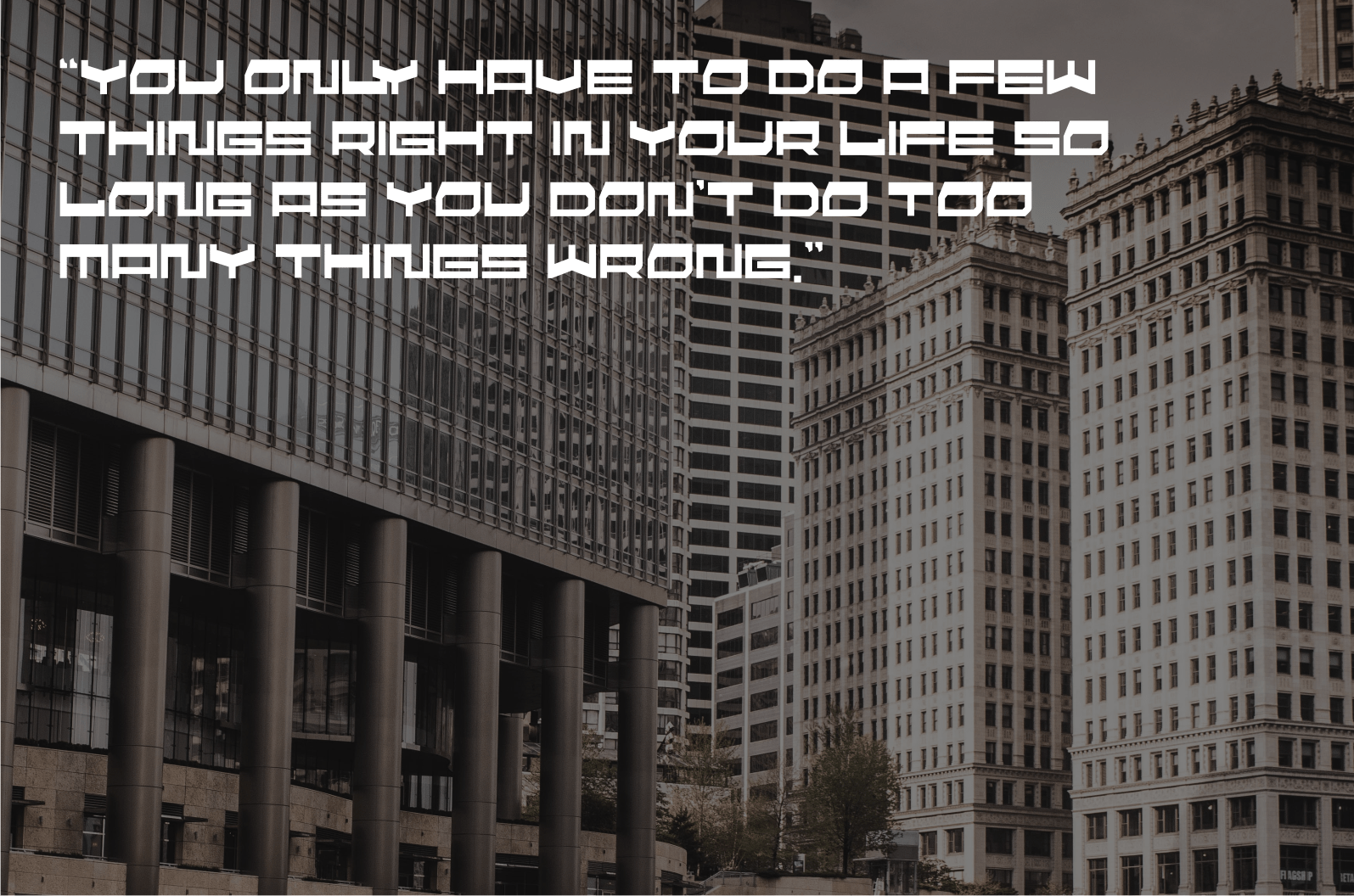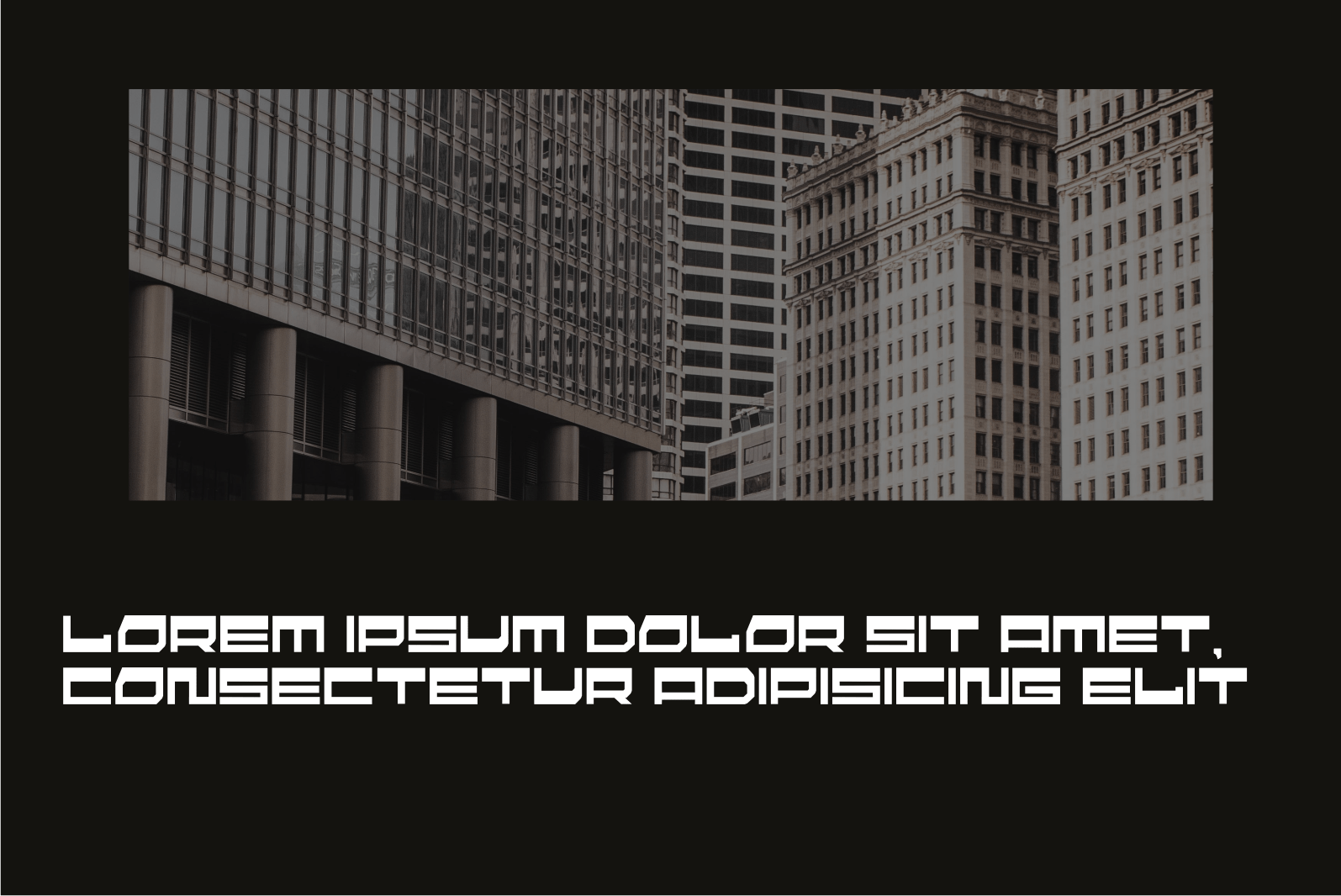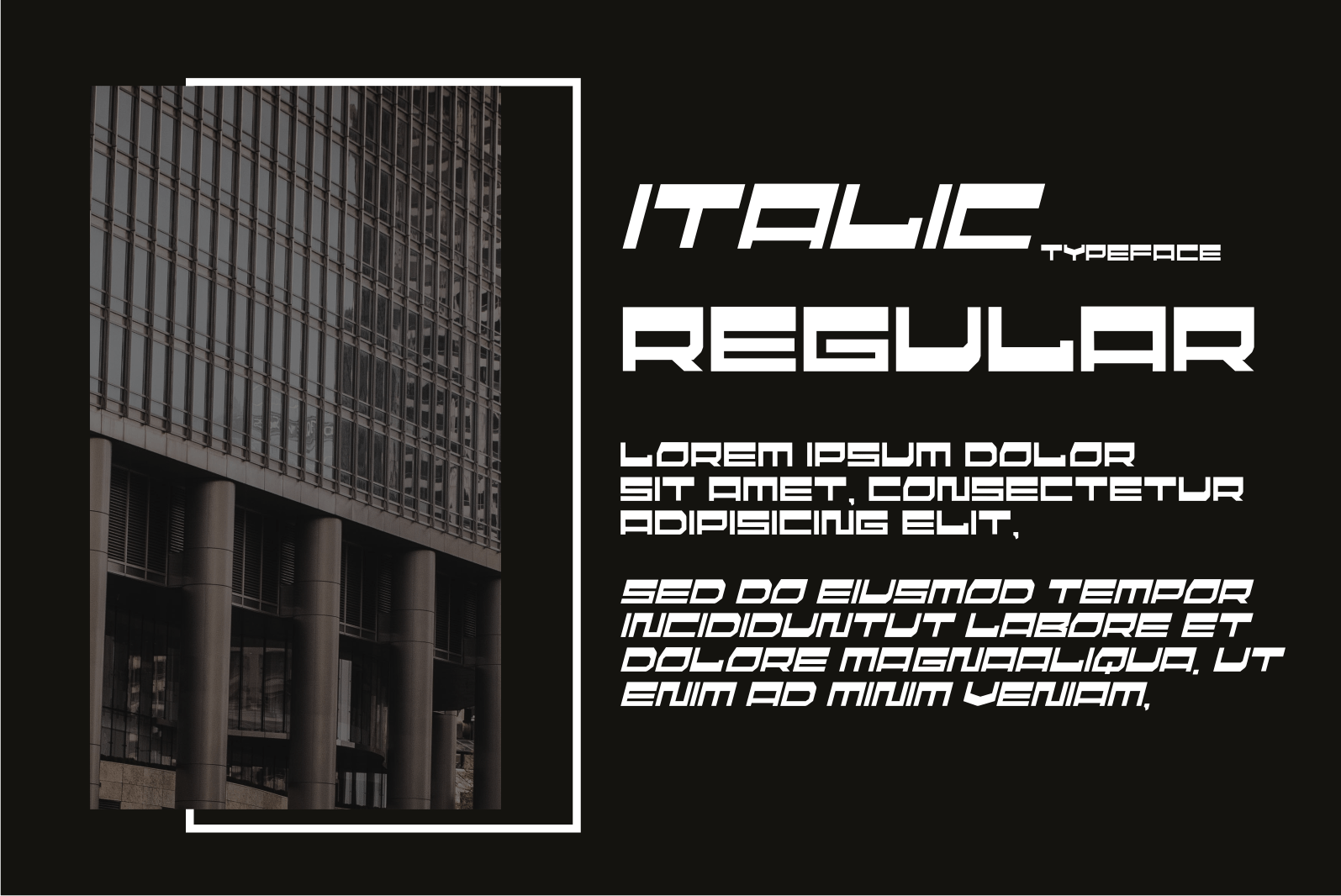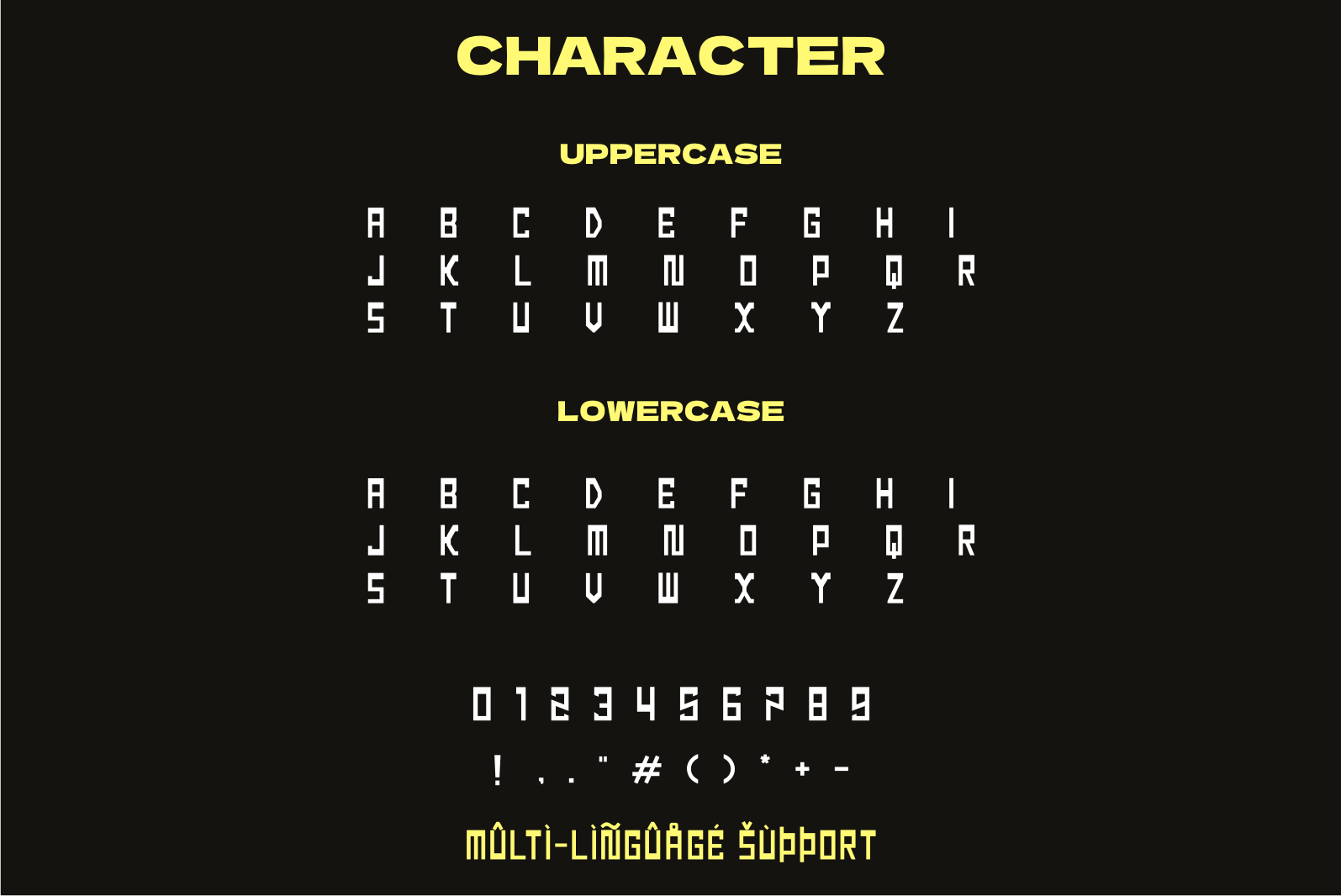
Speeft Display Font
It’s an assertive and robotic styled display font. It is ideal for writing web designs, business cards, or pretty much anything else that requires a futuristic touch.